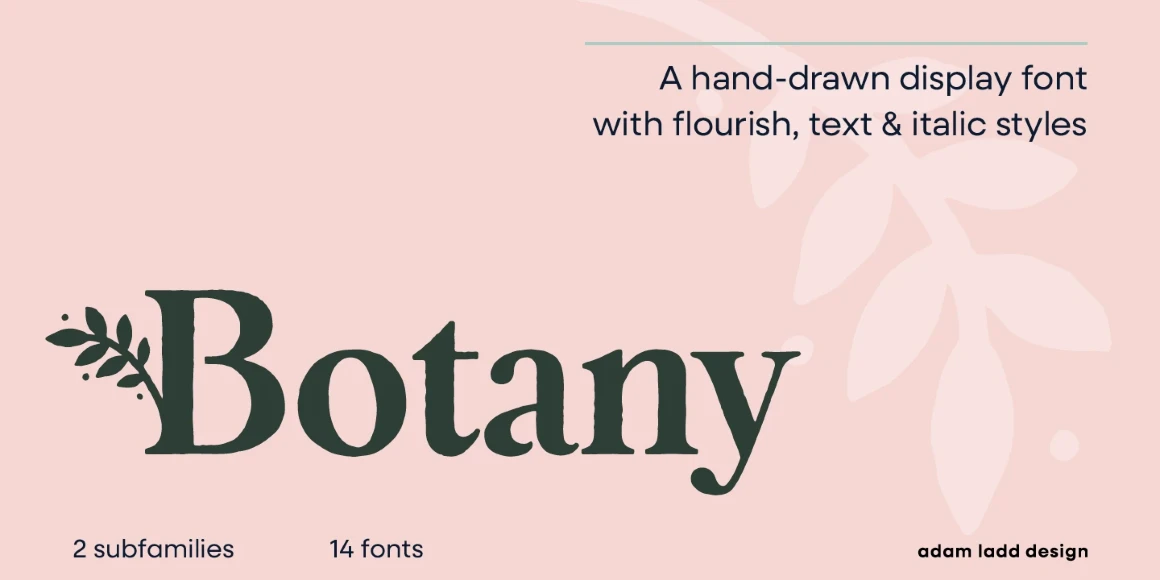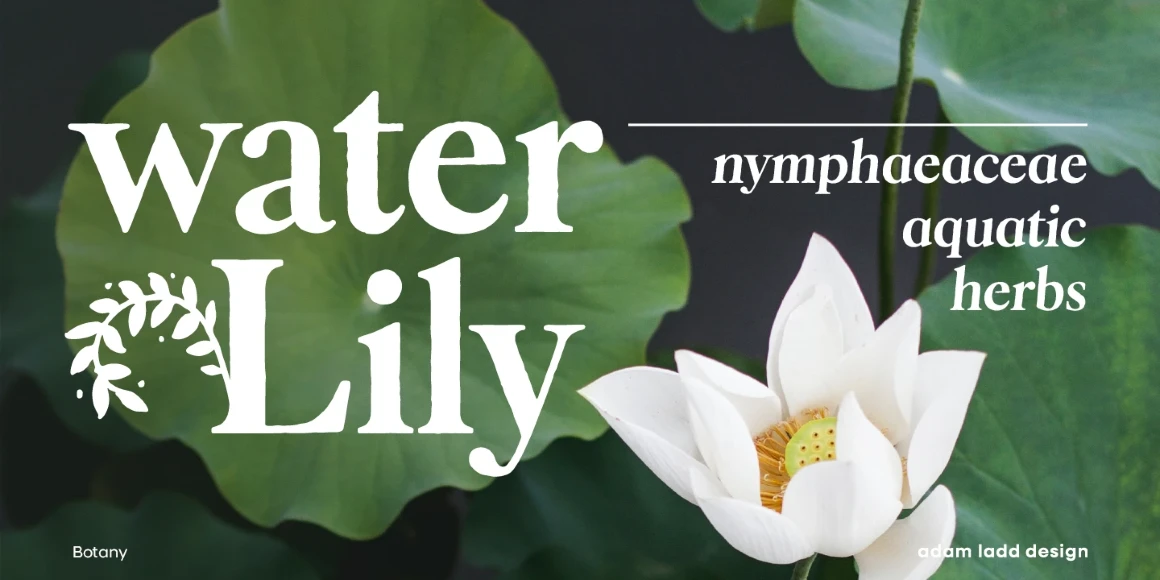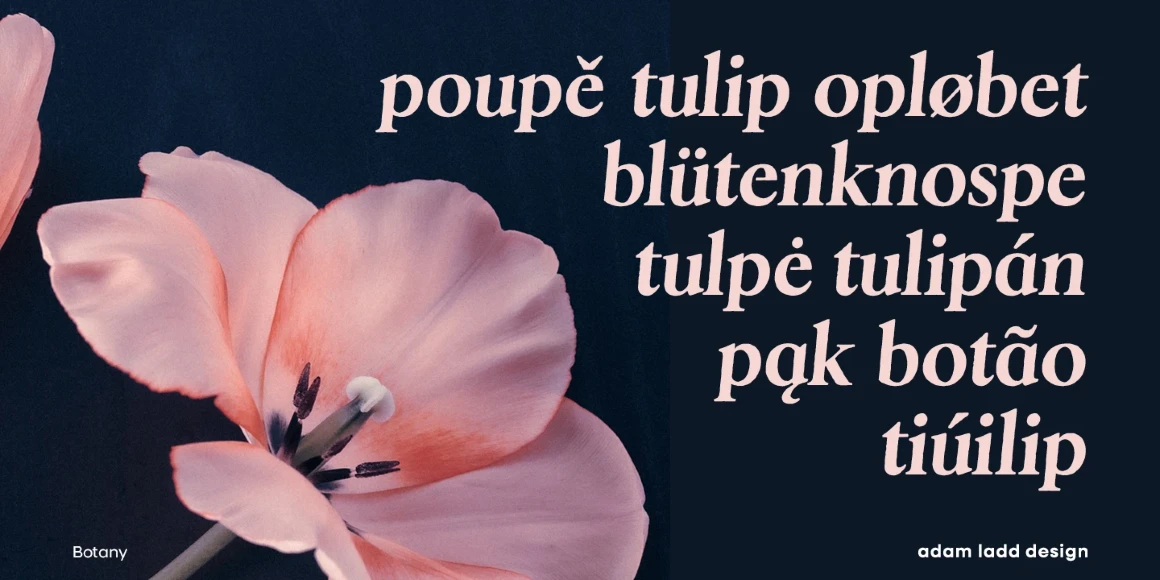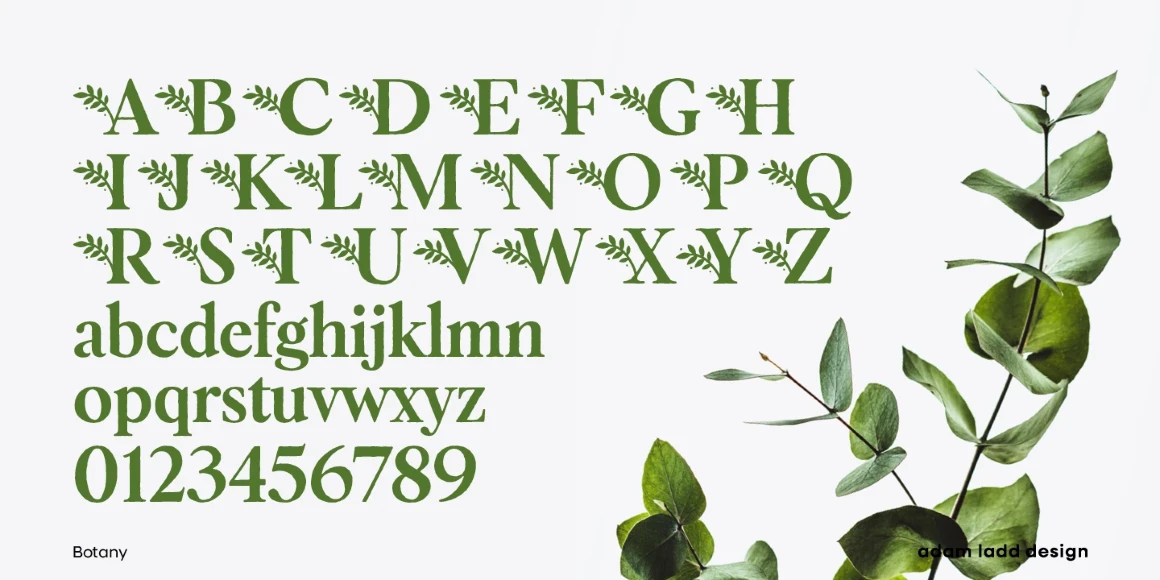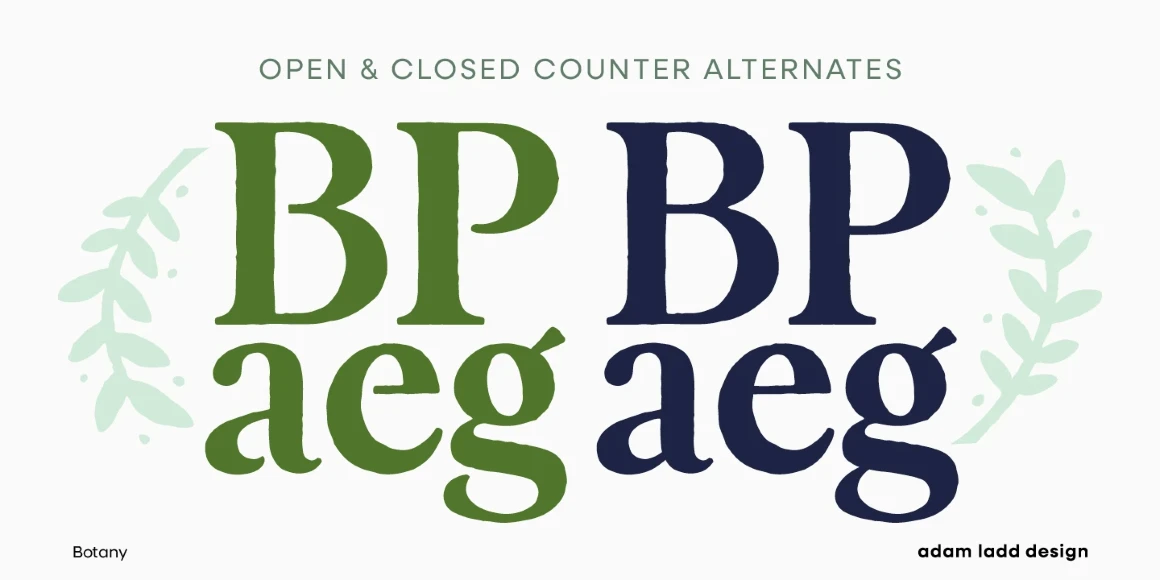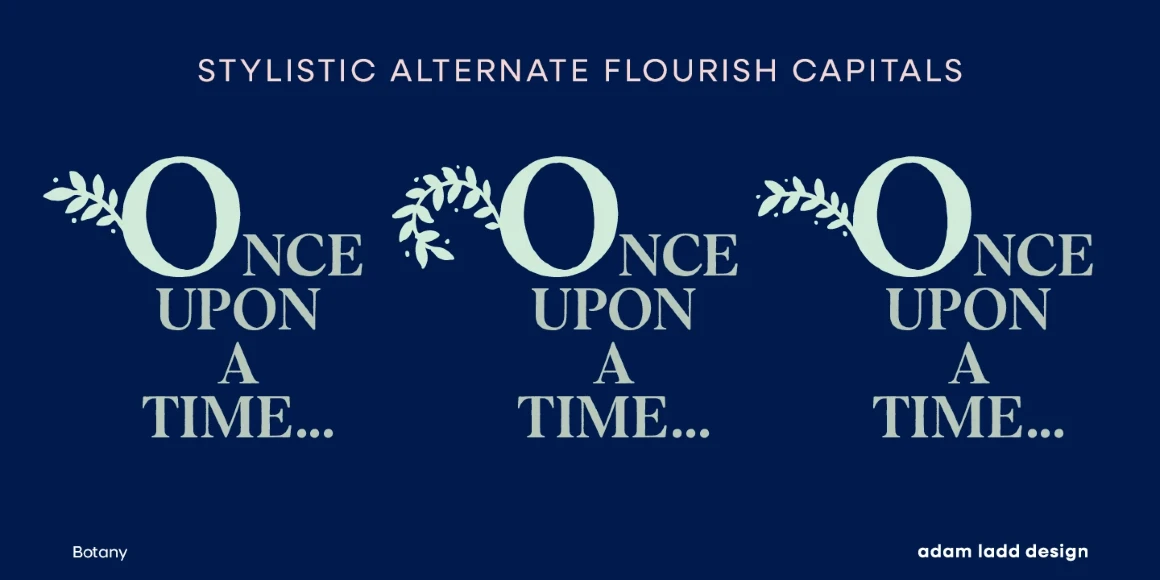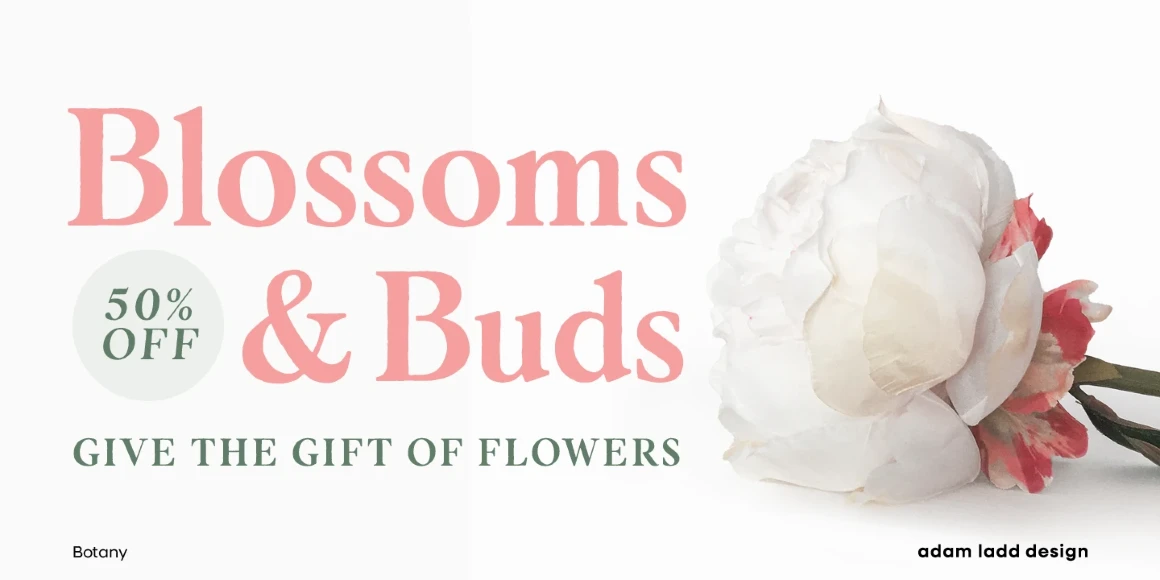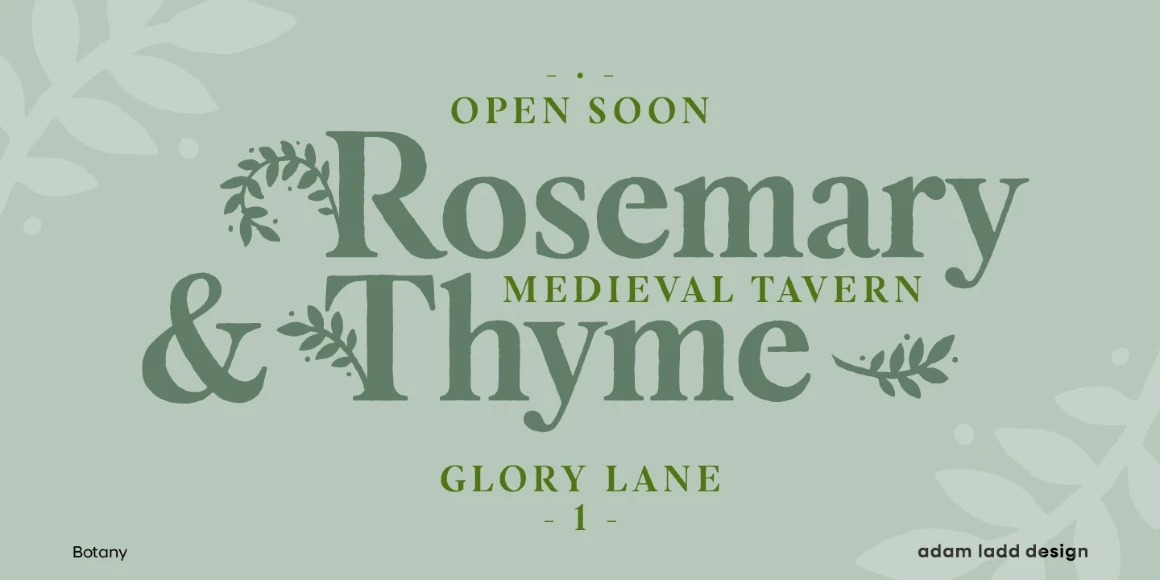
Botany
By Adam Ladd
Botany Regular
Botany Regular Italic
Botany Text Regular
Botany Text Regular Italic
Botany is a distinctly hand-drawn display serif with an optional decorative flourish. The defining feature is the uniquely embellished capitals that evoke a kind of natural elegance. The beautifully textured and carefully drawn appearance shines in various display sizes and situations. Use it large to emphasize the texture or smaller for a more subtle feel. Design examples include magazine design for landscaping, organic food packaging, fantasy book chapter titles, and wellness branding.